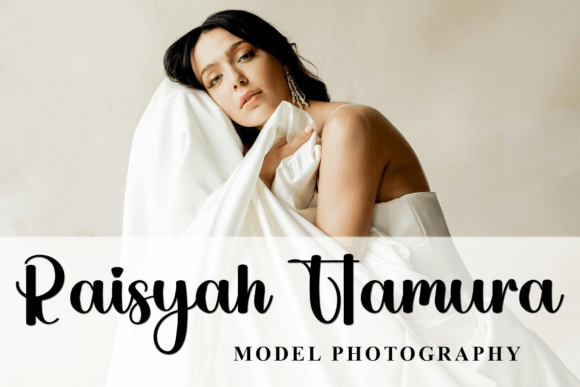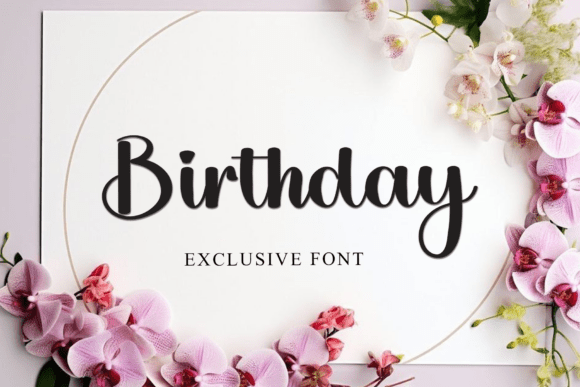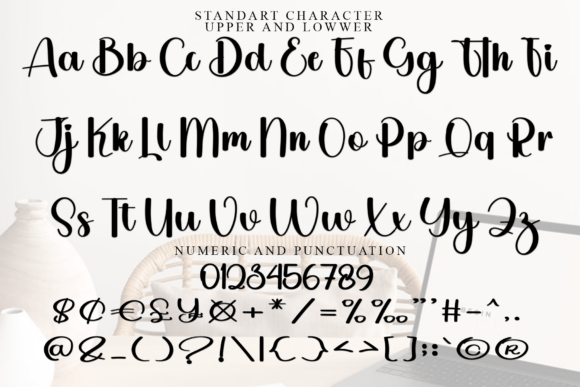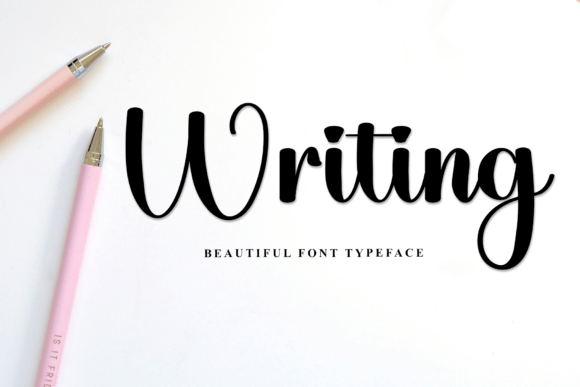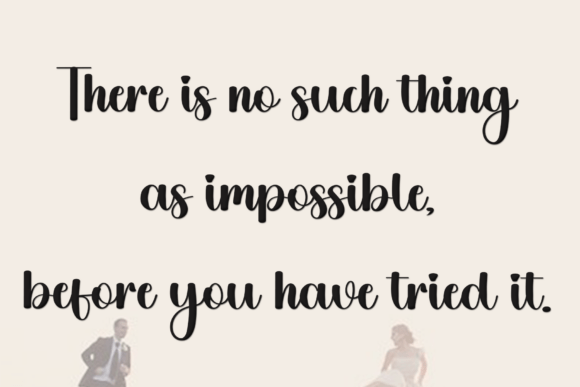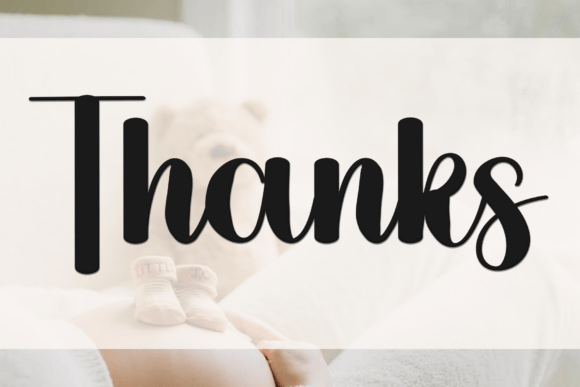
Introduction to Outside Pumpkin Font
Outside Pumpkin is a beautiful and eye-catching font designed with a soft, unique touch.
Its distinctive strokes give it a special character, making it meaningful and versatile for future use With various characters, itโs perfect for design projects, crafts, and other creative works.
Key Features of Outside Pumpkin Font
Why Choose Outside Pumpkin Font?
Outside Pumpkin Font offers exceptional quality and versatility, making it a valuable addition to your design toolkit. Whether you’re creating for personal projects or commercial use, Outside Pumpkin Font delivers professional results.